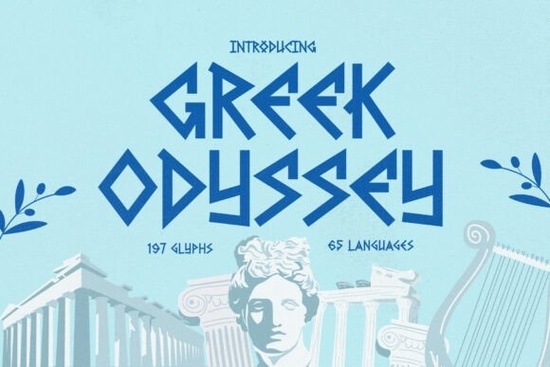
When you need a typeface that balances historical weight with modern readability, Greek Odyssey Font gives you a reliable starting point. It pulls from classical Greek lettering traditions and shapes them into a display serif that works well across posters, packaging, and digital layouts. Designers, crafters, and small business owners often reach for this style when they want to suggest heritage, craftsmanship, or quiet authority without making the design feel outdated. The steady proportions and sculpted edges keep text legible even at larger scales, which matters for physical merchandise and screen-based campaigns.
What types of projects actually need a classical display typeface?
Not every layout benefits from letterforms that feel carved from stone, but several rely on them heavily. Historical documentaries, museum exhibition posters, and mythology-themed book covers use typography to set a clear tone before the audience reads a single sentence. The classical serifs create a sense of permanence. Designing labels for olive oil or heritage brands works well with these refined curves, which photograph cleanly under studio lighting. For print-on-demand sellers, pairing it with simple vector art prevents heavy textures from competing with detailed stroke work. You can also look into heavier display styles when your layout requires more visual density without losing clarity.
How do you pair it without overwhelming your layout?
Display fonts work best when you give them breathing room. Use this typeface for short phrases, chapter titles, or logo locks, then switch to a neutral sans serif for body paragraphs. When your project leans toward warmer themes, friendly script alternatives keep the mood approachable while letting the headline carry visual weight. Test letter spacing before exporting. If you design event flyers, exploring structured retro layouts balances historical references with clean grids.
What should you consider for apparel and packaging designs?
Screen printing reacts differently to thin curves. Increase stroke weight slightly if your vendor works on uncoated stock. For team apparel, traditional athletic lettering might suit varsity layouts better, while luxury boxes benefit from tighter kerning. If you add background patterns, keep high contrast so terminals stay sharp. Lighter accents can break up dense themes without distracting from the headline.